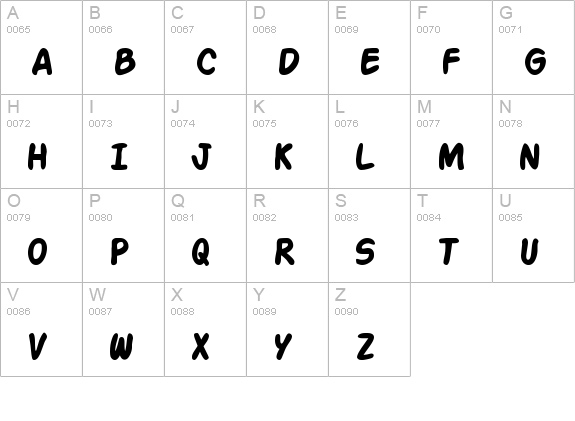
TR Action Man Bold is a strong, high-contrast variant in the TR typeface family \xE2\x80\x94 well suited to headlines, attention-grabbing titles, and strong calls-to-action.
Introducing TR Action Man Bold font, a versatile and dynamic typeface designed to make your designs stand out with bold impact. This font exudes confidence and strength, making it perfect for headings, titles, and branding projects that require a strong visual presence. The bold and commanding letterforms of TR Action Man Bold will capture the attention of your audience and leave a lasting impression. But that's not all - TR Action Man Bold font is also free to download at FontsMarket.com! That's right, you can access this powerful typeface at no cost and start using it in your projects right away. Don't miss out on this opportunity to elevate your designs with the impactful style of TR Action Man Bold font. Download it now and unleash the power of bold typography in your work.